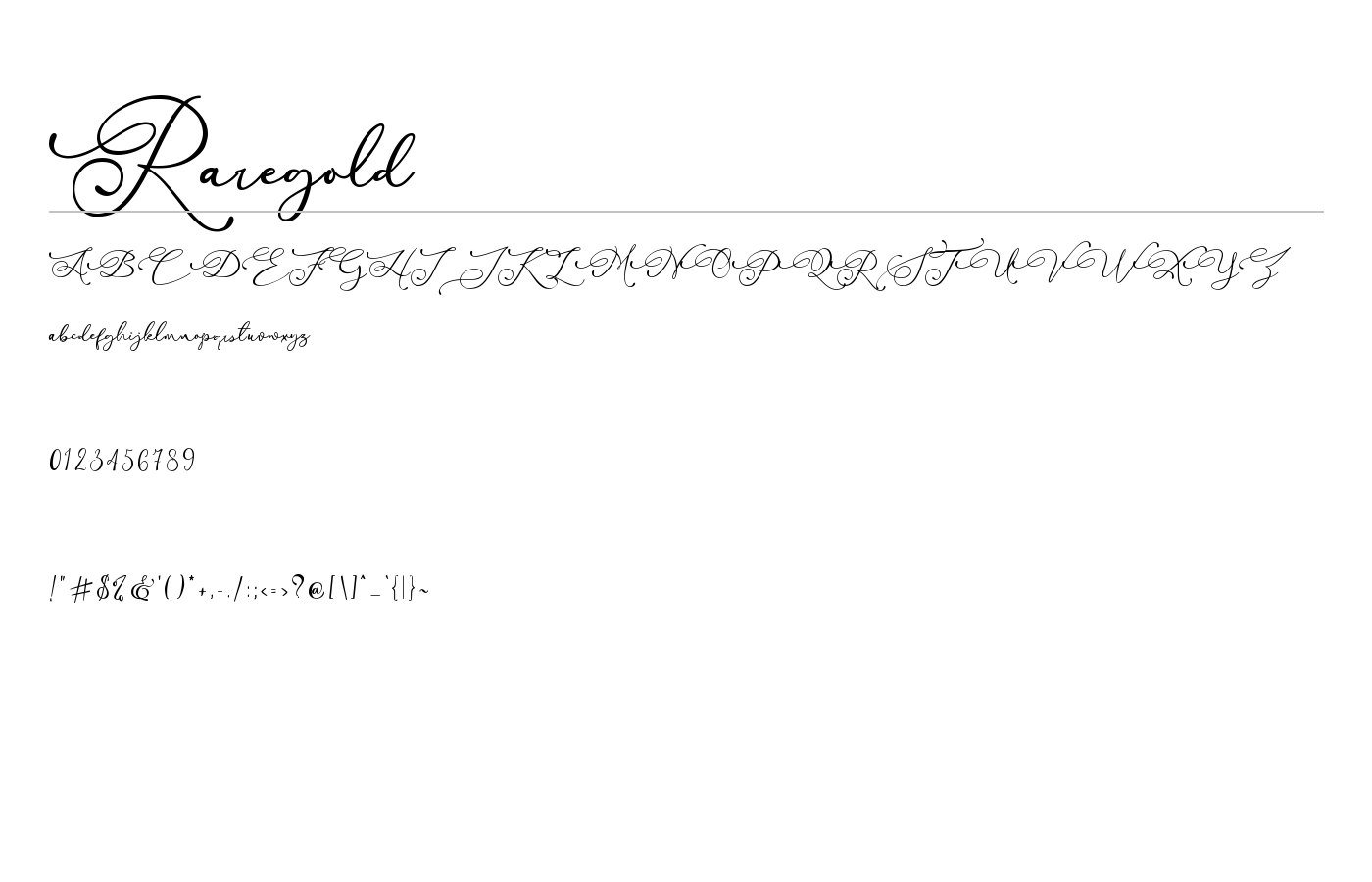
Raregold is a delicate and elegant script font featuring intricate, flowing letterforms with high contrast between thin and thicker strokes. Its ornate and decorative uppercase letters combined with a refined, legible lowercase make it perfect for luxury branding, wedding invitations, and sophisticated editorial design where a graceful and stylish impression is desired. This font adds a touch of classic beauty and charm to any project needing a refined, handcrafted feel.
Raregold Font
About Raregold Font
| Font family | Raregold Font |
| Release date | 2019-08-13 |
| Designer | Aldedesign 2019 (Alde Saputro) |